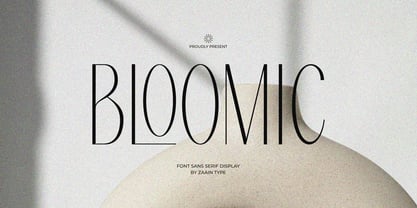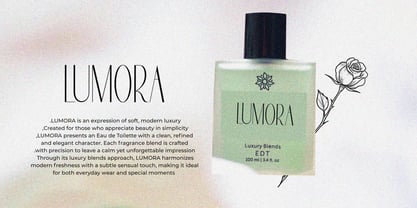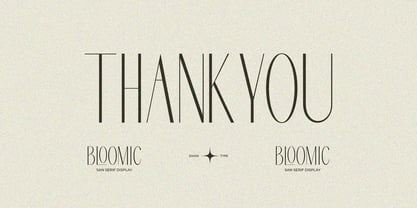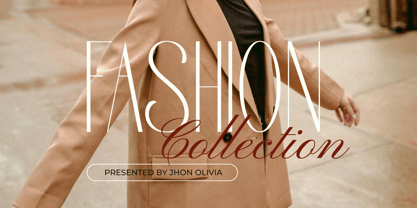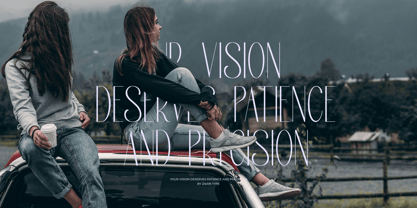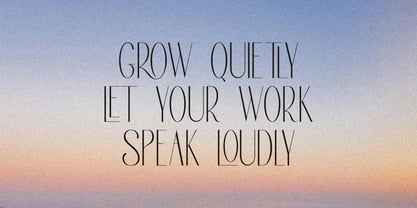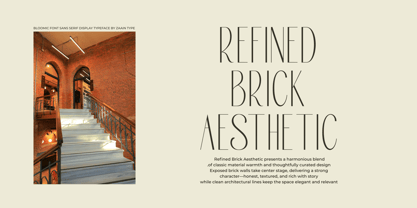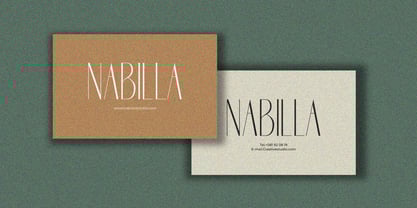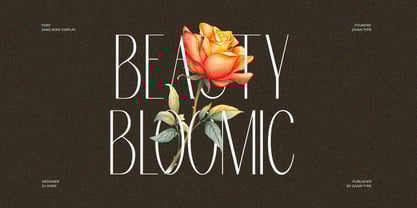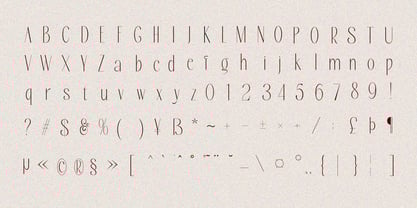
Bloomic
by Zaain Type
The Bloomic Font Family was designed by Ju Naen and published by Zaain Type. Bloomic contains 2 styles and family package options. More about this family
Bloomic is a typeface that radiates a fresh, elegant, and character-rich presence. Designed with balanced proportions and refined details, Bloomic blends classic sophistication with a clean modern touch. Each letter feels lively—soft yet confident—creating a visual rhythm that is both comfortable to read and visually engaging. This font is perfectly suited for branding, fashion, cosmetics, editorial design, product packaging, and striking headlines that require a refined and upscale feel. Bloomic carries a sense of blooming—growth, freshness, and bold expression—making it an ideal choice for designs that aim to appear modern, stylish, and timeless.
Designers: Ju Naen
Foundry: Zaain Type
Zaain Type is a type foundry based in Purbalingga, Central Java. Specializing in high-quality type design, Zaain Type offers a range of fonts that combine traditional craftsmanship with modern aesthetics. Known for its meticulous attention to detail, the foundry produces typefaces suitable for various applications, ensuring readability and visual appeal. Inspired by the rich cultural heritage of Central Java, Zaain Type incorporates local artistic elements into its designs, contributing to the global appreciation of Indonesian typography.